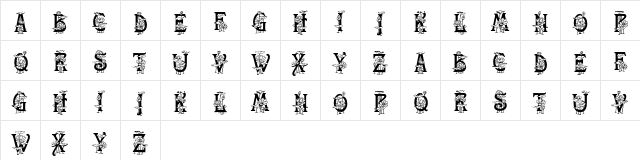
Lotus CG Regular
Design Context for Lotus CG Typeface
Lotus CG is a composed and adaptable typeface that performs quietly and consistently across a wide range of design contexts.